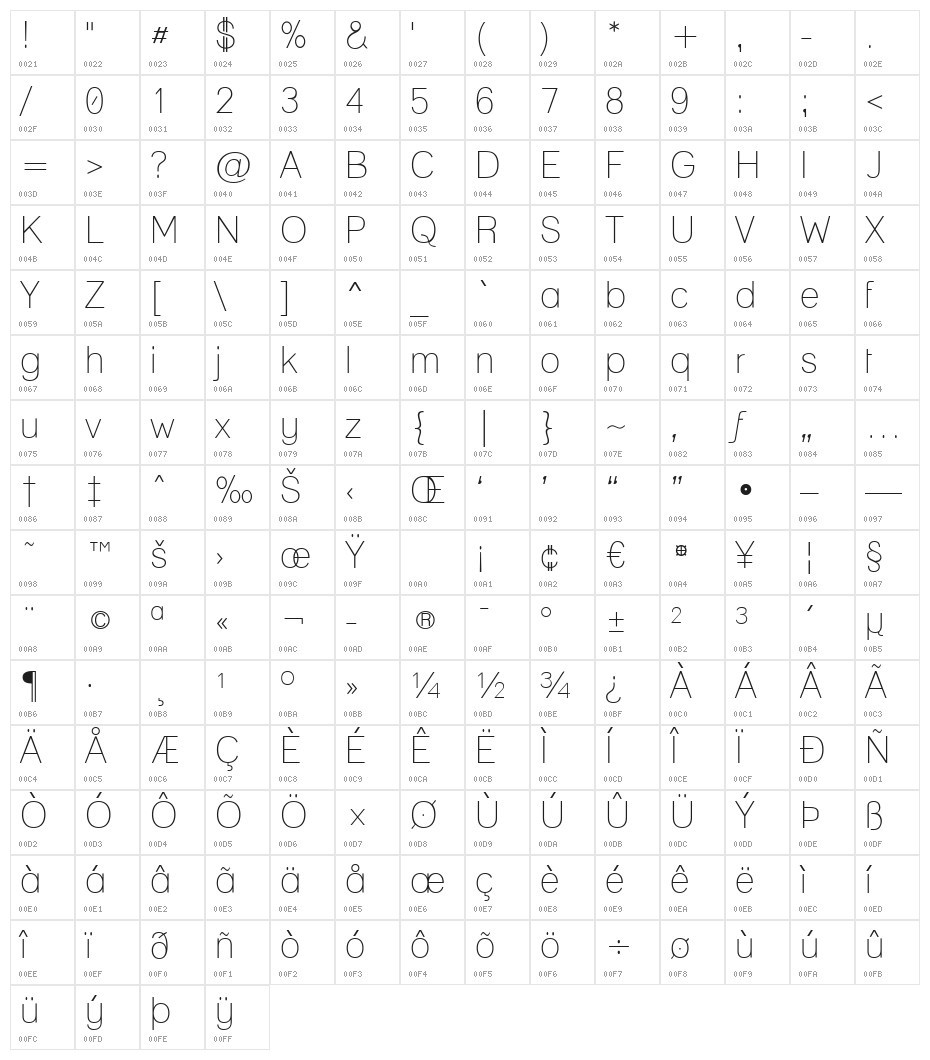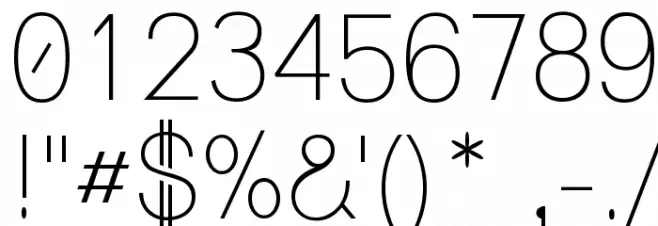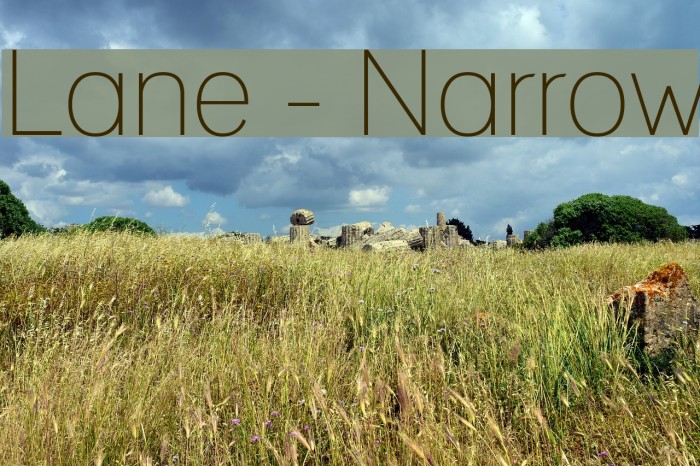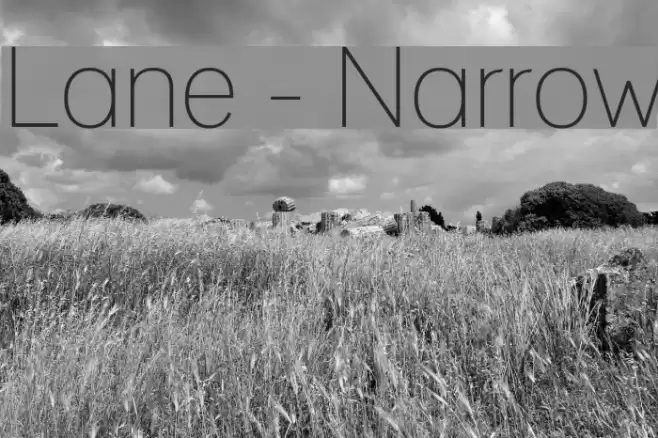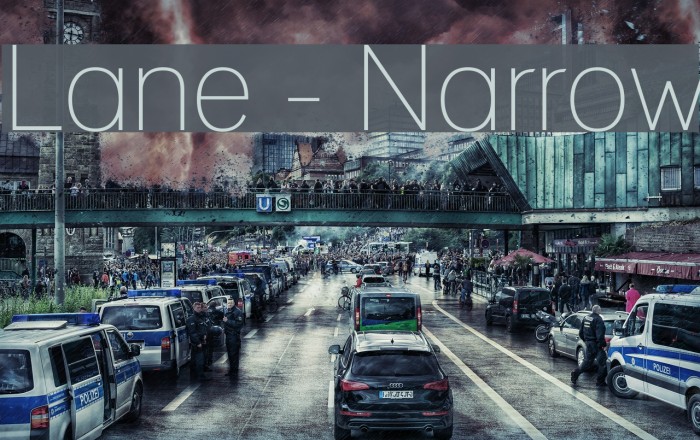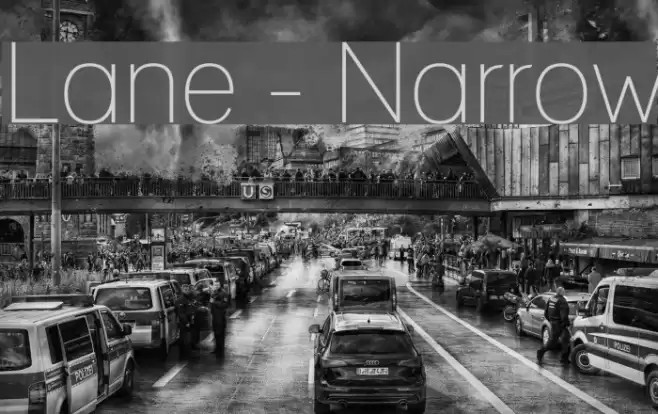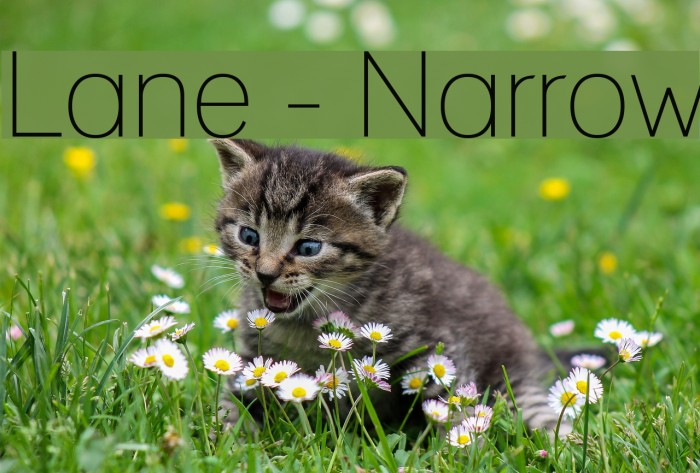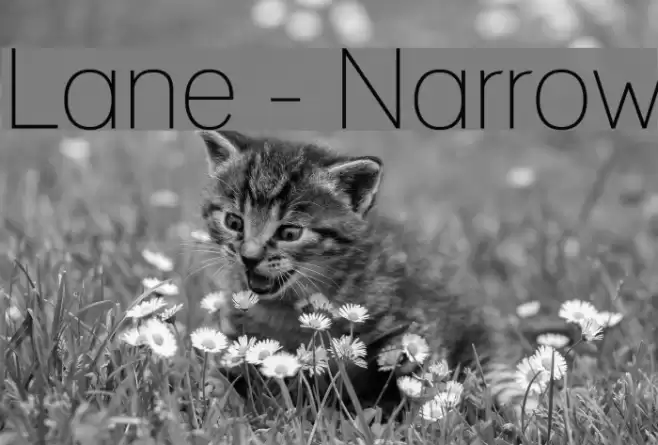
Lane - Narrow Font
Lane - Narrow Description
This font features a clean and modern sans-serif design with a narrow width, giving it a sleek and contemporary appearance. The characters are evenly spaced with a consistent stroke weight, providing a harmonious and balanced look. The uppercase and lowercase letters maintain a uniform height, enhancing readability and creating a cohesive visual flow. The numerals are distinct and clear, making them suitable for various applications. Special characters are well-defined, adding versatility to the font's use. Overall, this font exudes a minimalist and professional aesthetic, ideal for modern design projects.
| Width | Condensed |
| Use Case | Headlines, Body text, Logos |
| Proposed Projects | Ideal for branding, editorial design, websites, and corporate materials. |